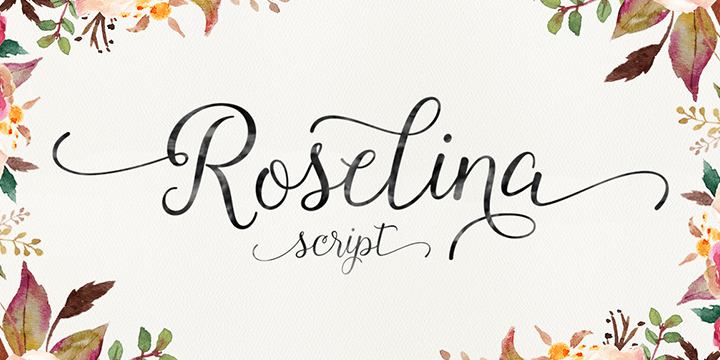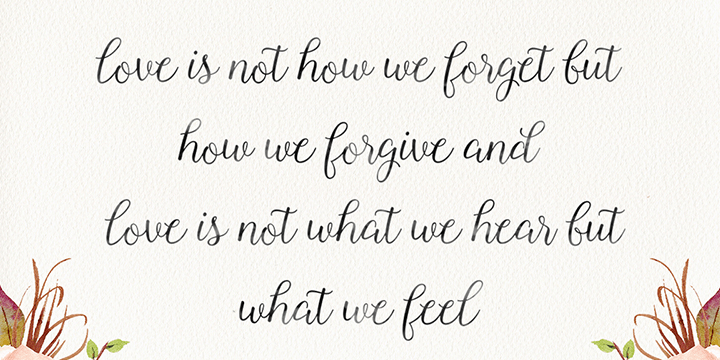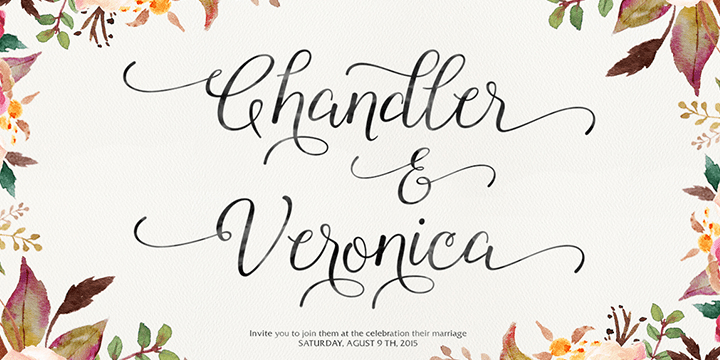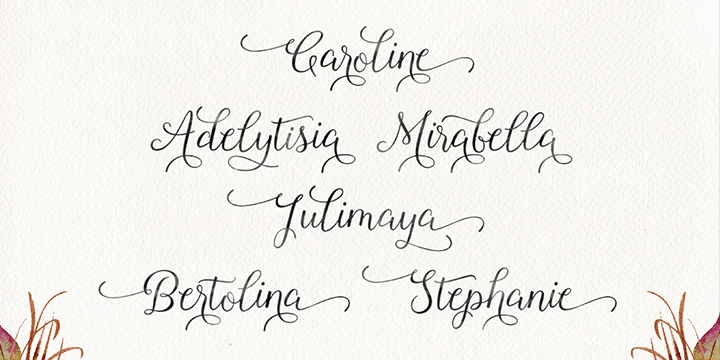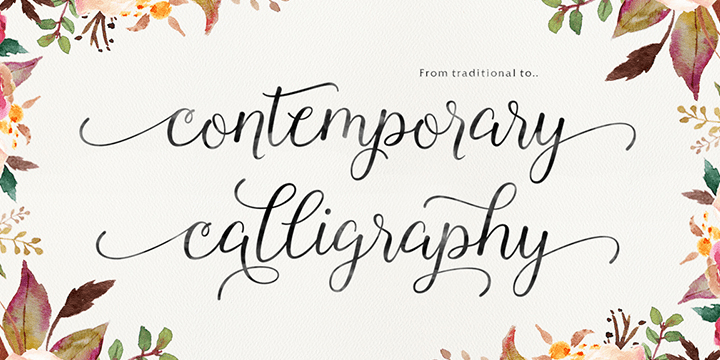
Roselina Script
Buy NowRoselina Script is a contemporary calligraphic typeface with a vintage feel. Its dynamic, hand-crafted style features a moving baseline and elegant touches, making it perfect for headings, signatures, logos, wedding invitations, t-shirts, letterheads, signage, labels, news, posters, badges, and more.
It features over 417 glyphs and 183 alternate characters, including initial and terminal letters, alternates, ligatures, and support for multiple languages.